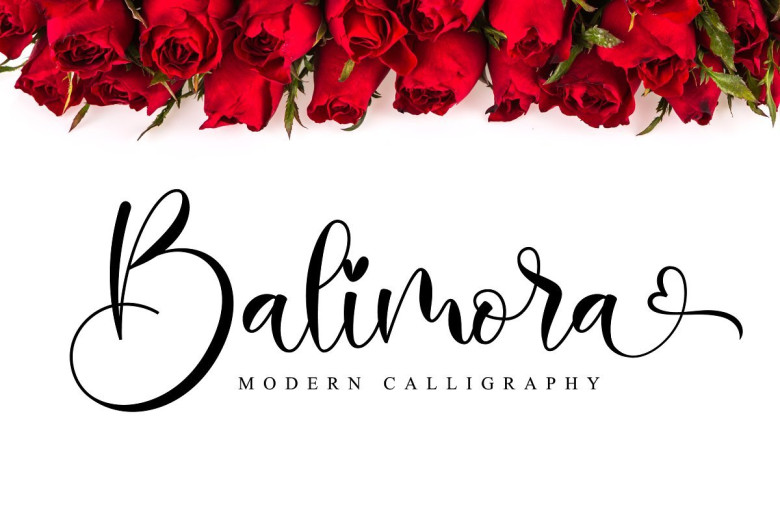
Balimora Script Font
Introducing Balimora Script Font. It’s a Beautiful script font carefully created with a touch of romantic. This is a beautiful combination of timeless elegance and authentic calligraphy, It has lowercase beginning and ending swashes. It’s an incredibly beautiful script font.
It has a classy, elegant, and modern look which can be used for logos, branding, invitations, stationery, wedding designs, social media posts, and much more!